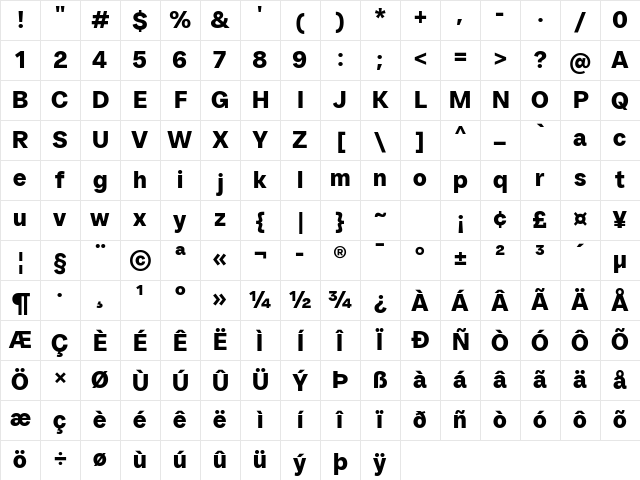
Complete SFT Ritam Sans TRIAL ExBold Regular glyph index. Displaying only characters natively supported by SFT Ritam Sans TRIAL ExBold Regular font.
SFT Ritam Sans TRIAL ExBold is a composed and adaptable typeface that performs quietly and consistently across a wide range of design contexts. Its bold stroke weight gives it real presence on the page.